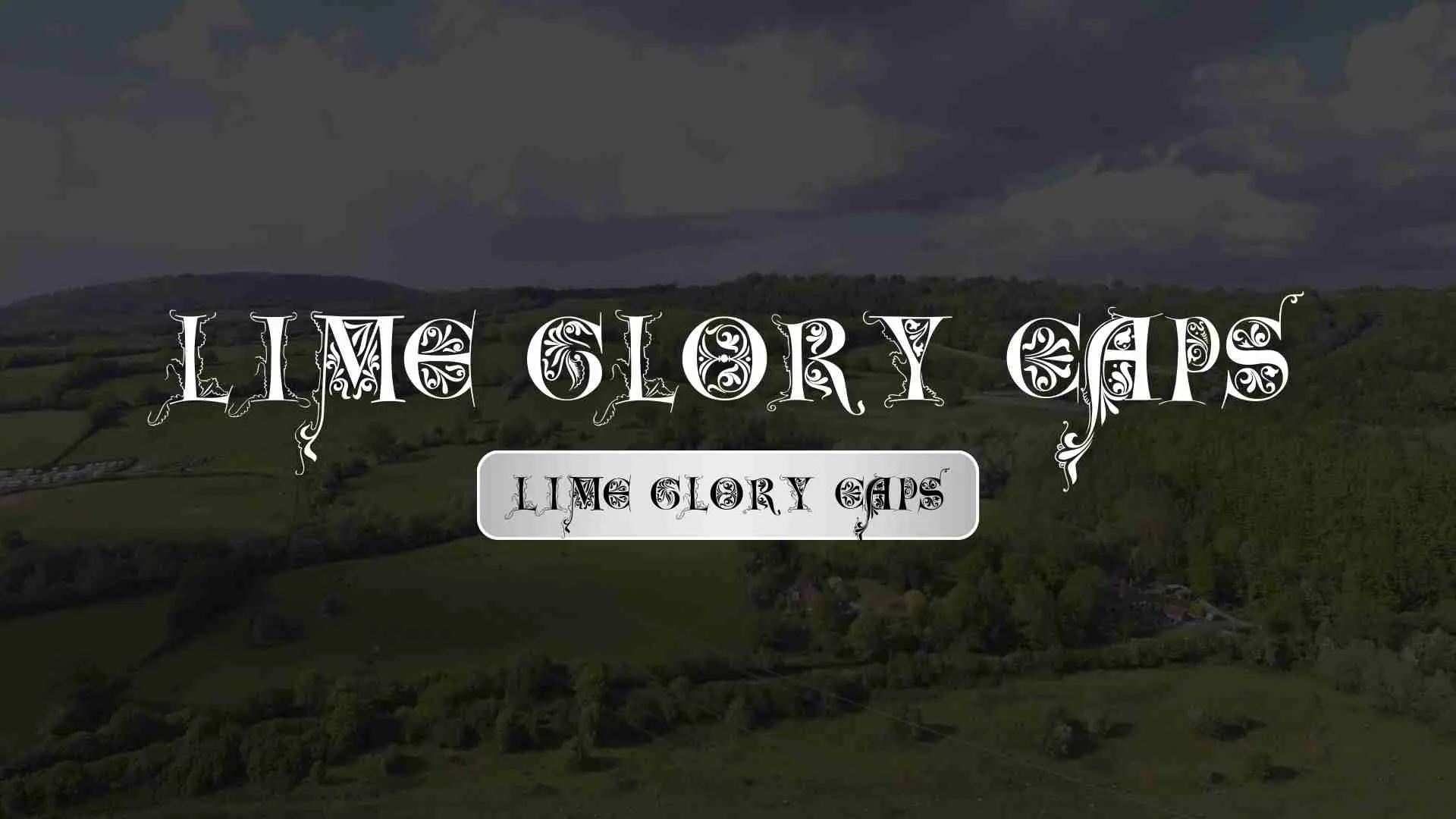
Lime Glory Caps Regular
The font Lime Glory Caps Regular, designed by House of Lime, falls under the Display category & Lime Glory Caps font family. Its smooth, flowing letterforms make it a versatile choice for projects that require both elegance and readability. Lime Glory Caps is particularly well-suited for Creative and Artistic Projects, Initial Letters, Monograms and Emblems, Decorative Titles and Invitations and Certificates. With its balance of simplicity and decorative appeal, this font brings a polished touch to both personal and professional designs.